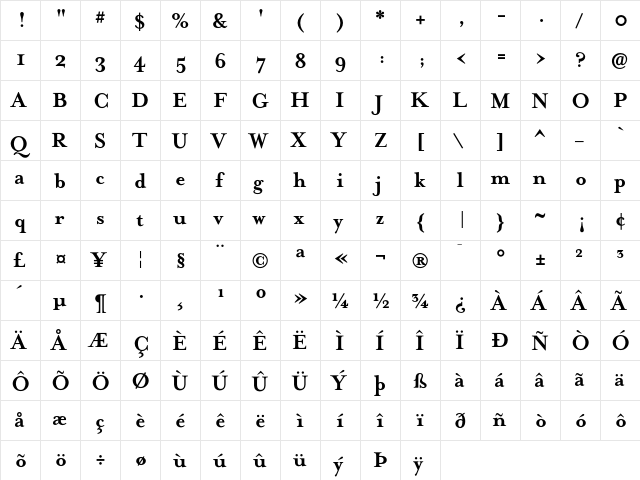
MrsEaves Bold
Design Context for MrsEaves Typeface
MrsEaves is a composed and adaptable typeface that performs quietly and consistently across a wide range of design contexts. The heavy weight commands attention and anchors typographic hierarchies.